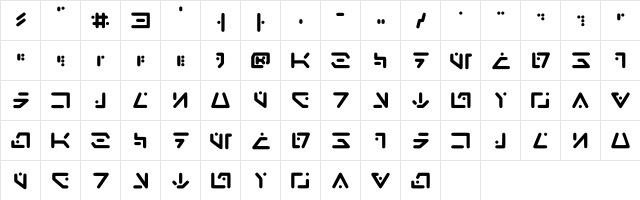
Aurebesh_droid Regular
Design Context for Aurebesh_droid Typeface
Aurebesh_droid offers clean, dependable letterforms without strong stylistic allegiance, making it a practical choice for designers who need flexibility.
Pro Tip: Use Aurebesh_droid in both headline and body roles to test its range before committing to a single application.